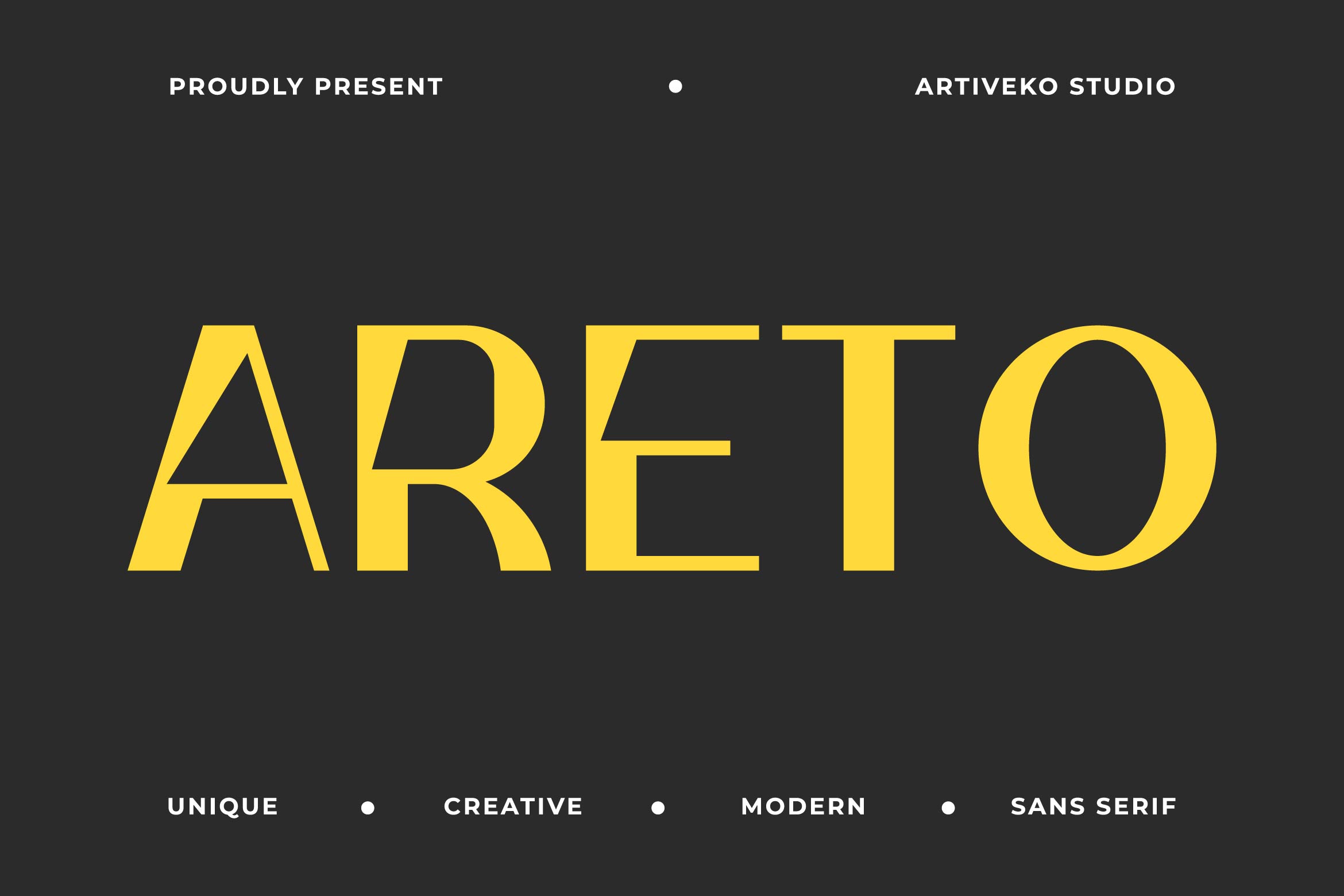
Areto is a modern sans serif font with a creative edge, designed to bring clarity and character to your visual projects. With its clean lines, geometric construction, and subtle uniqueness, Areto stands out as the perfect choice for branding, logos, packaging, posters, and digital content.
The font’s balanced proportions make it versatile for both display and text use, while its stylish curves add a touch of creativity without sacrificing readability. Areto is suitable for modern brands, fashion, tech, and lifestyle design that need a fresh, distinctive voice.
Included are uppercase and lowercase letters, numerals, punctuation, multilingual support, and a set of alternates and ligatures for flexible design options.
Create with confidence using Areto — a creative sans serif font that blends functionality and flair in perfect harmony.